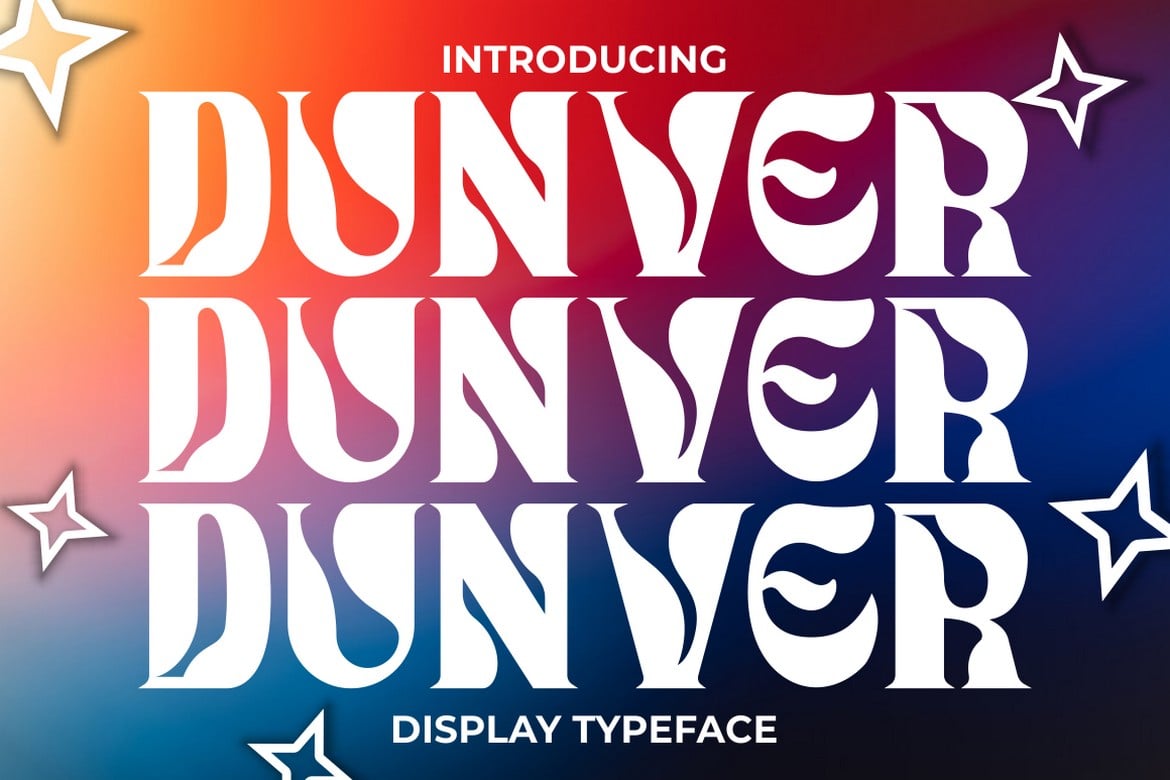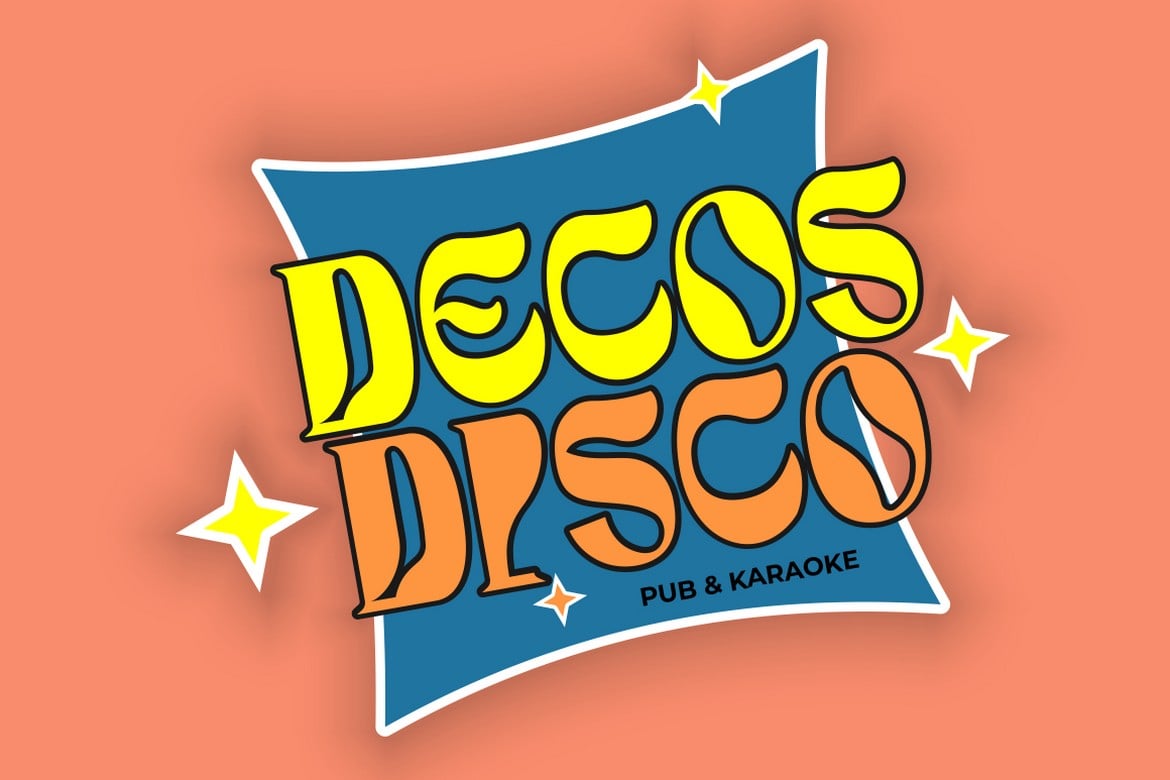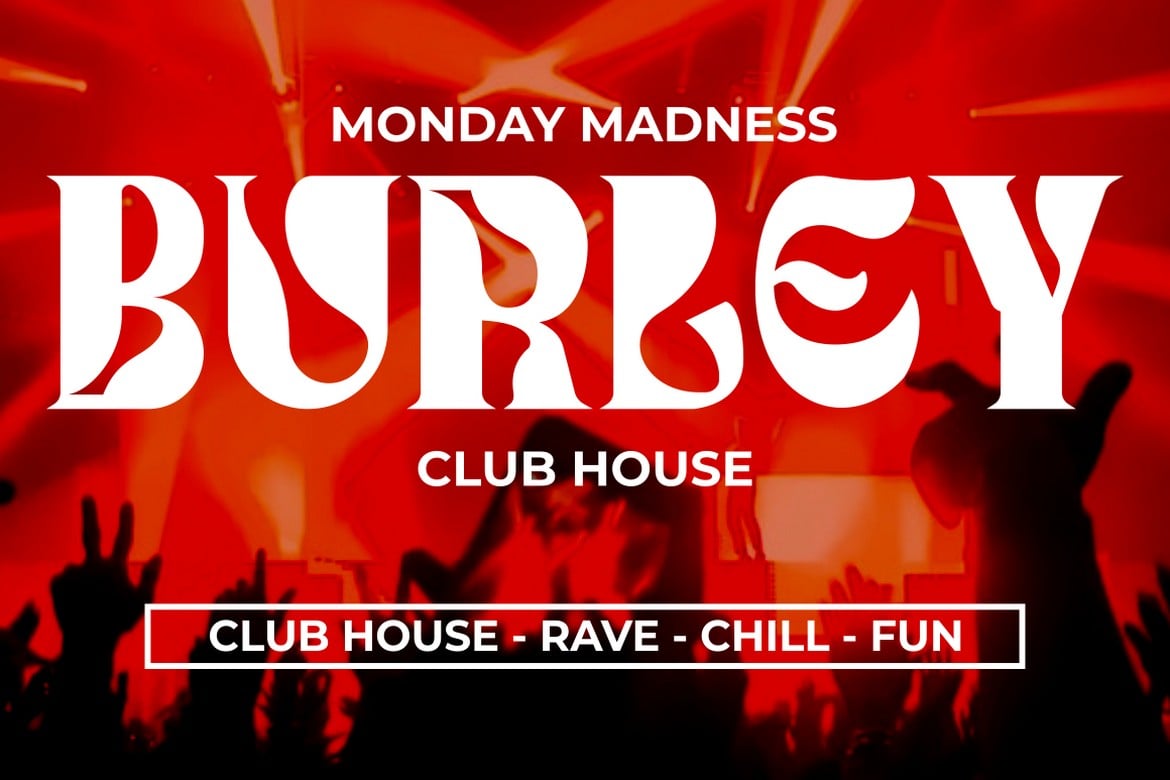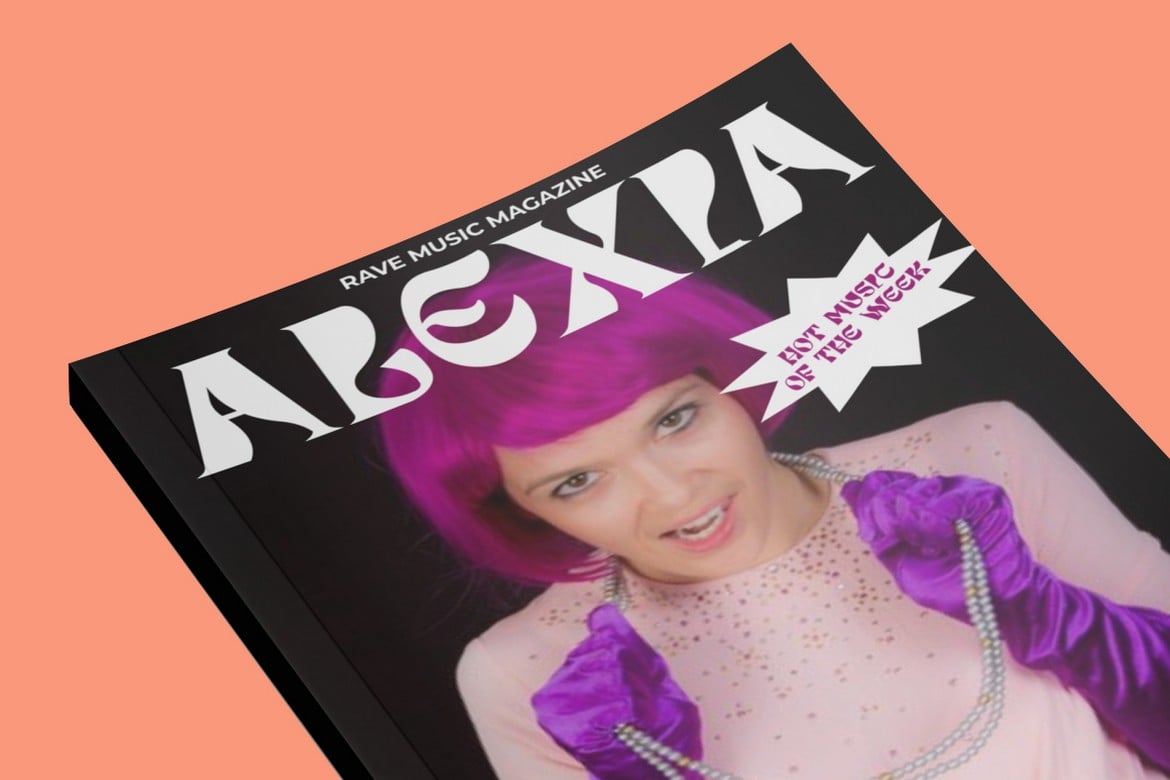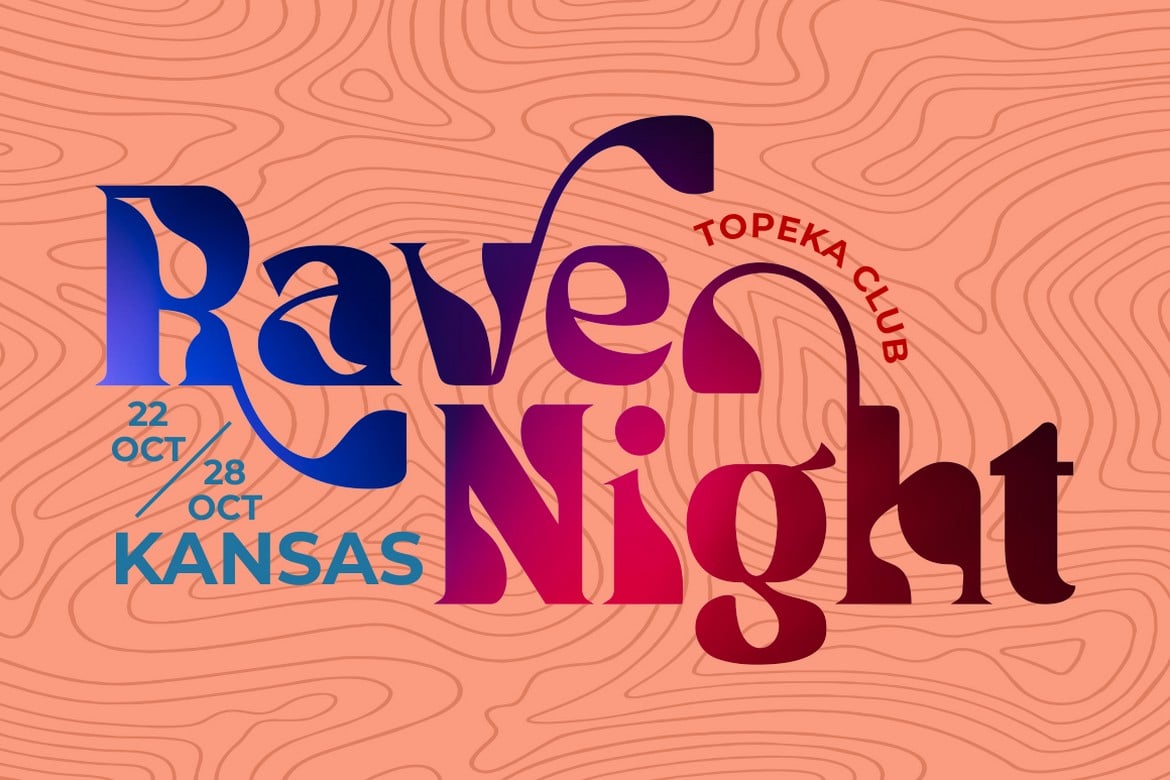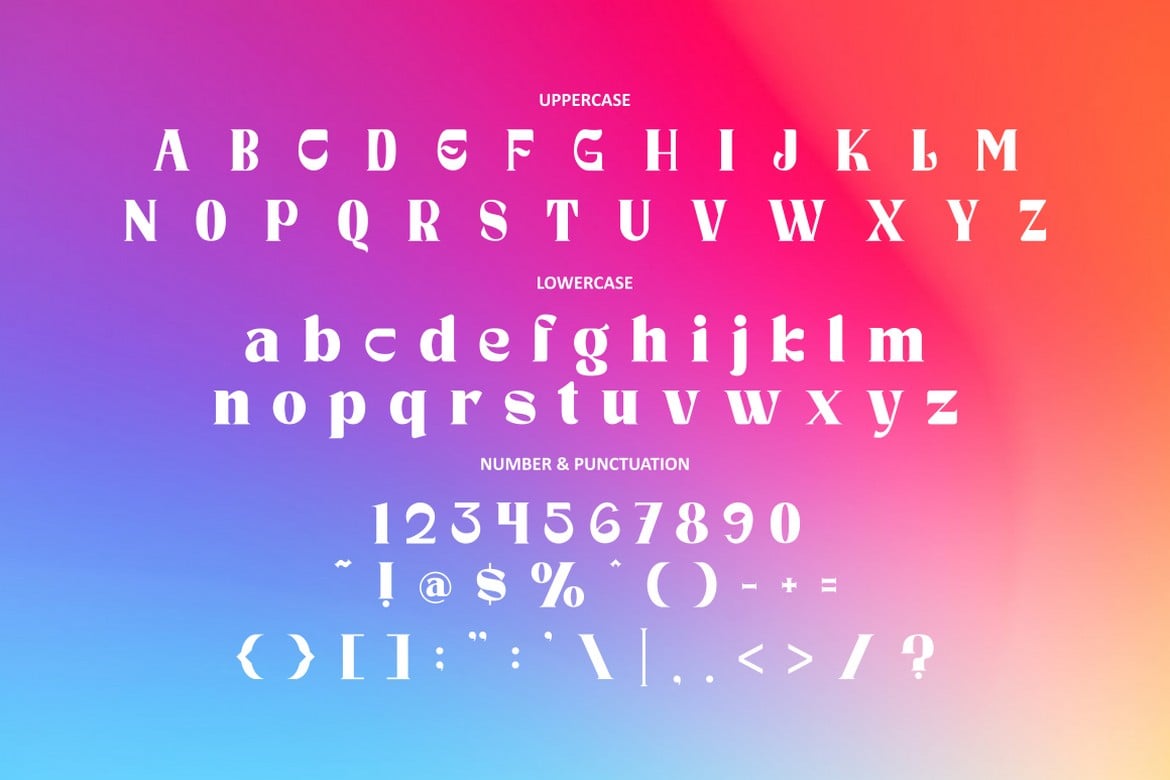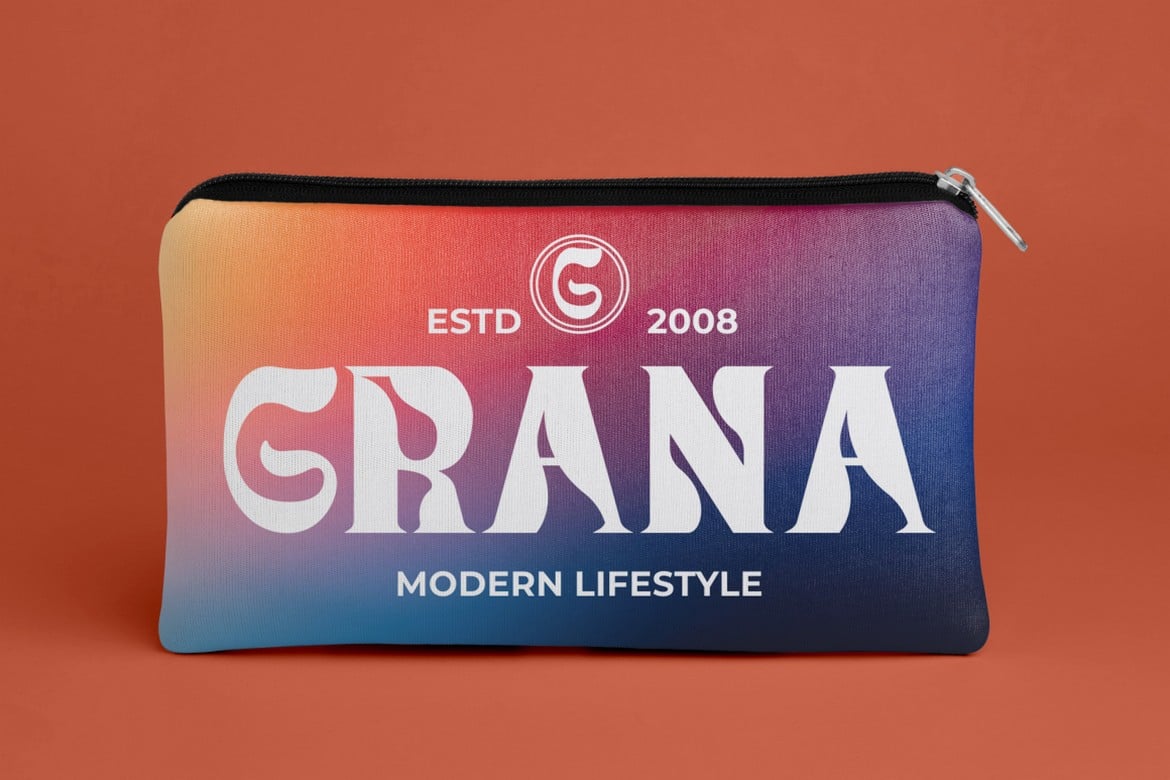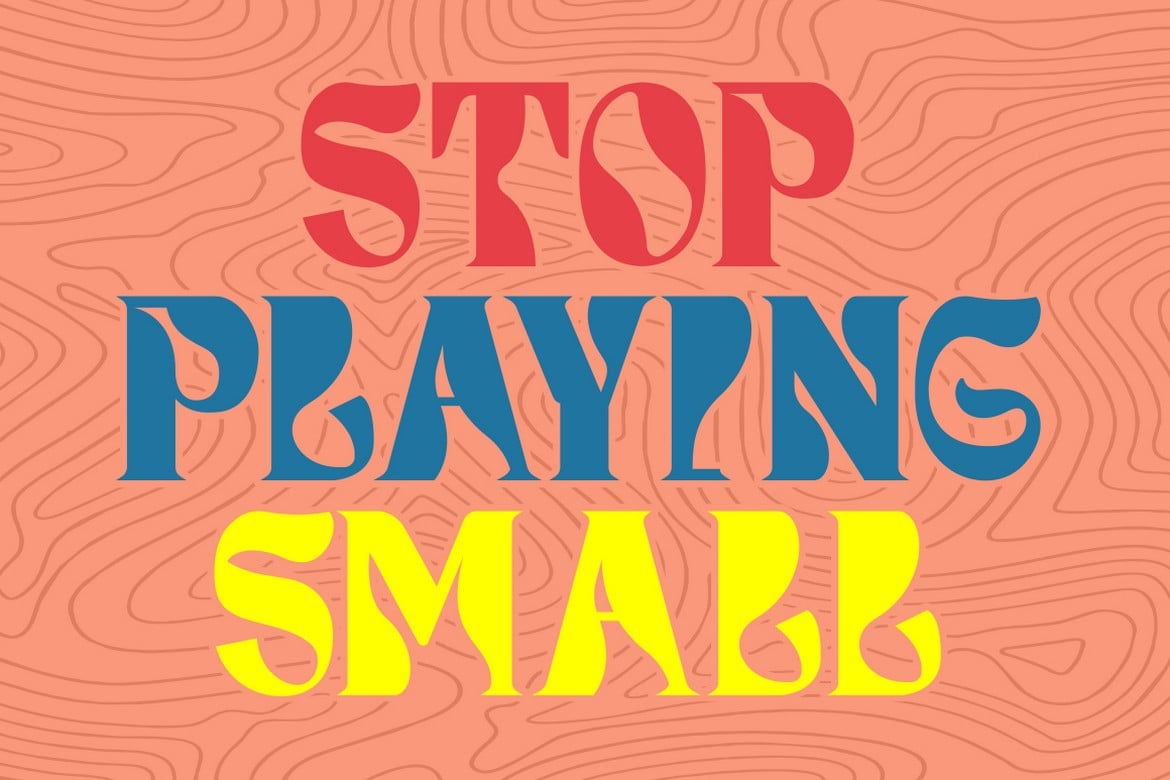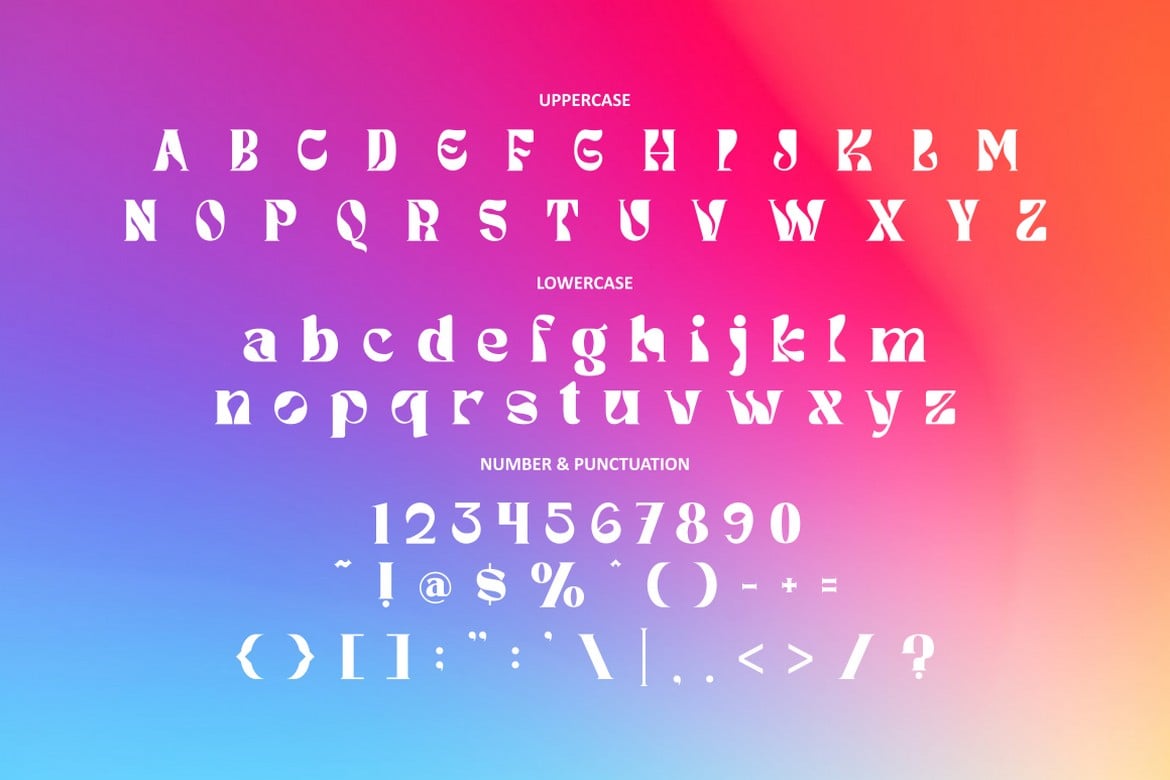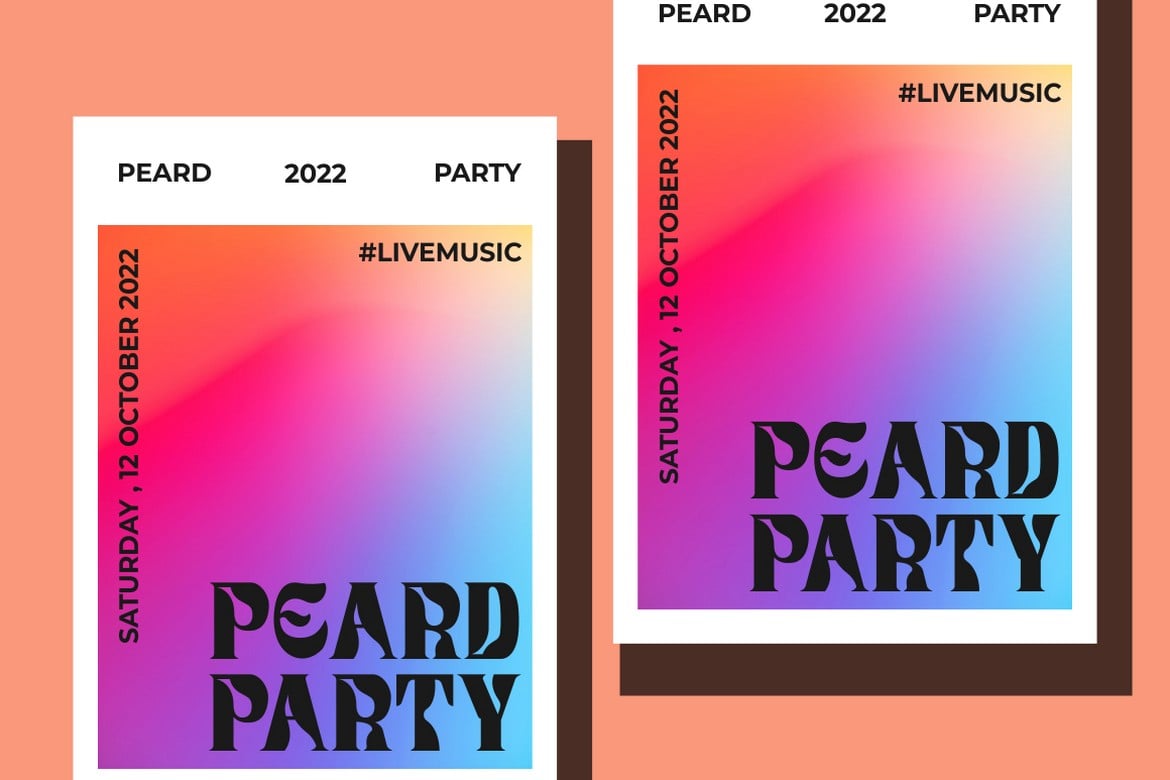
Dunver – Display Font
Dunver – Display Typeface Font. Dunver is a display style font. Dunver is inspired by vintage albums and posters from 1960s music bands. The classic typeface, fun and groovy impression is very visible. But in Dunver I combine several variations such as the ligature. It makes this font even more unique and different. Dunver is also great for any kind of display purpose from album, cover, poster, label, signage, quote, logo, greeting card, logotype and many more. Dunver is also support multi language.